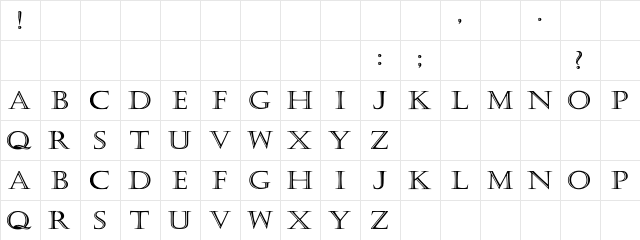
Kastellar-Bold Regular Free Font
Kastellar-Bold Regular
Design Context for Kastellar-Bold
Kastellar-Bold is a composed and adaptable typeface that performs quietly and consistently across a wide range of design contexts. Its bold stroke weight gives it real presence on the page.